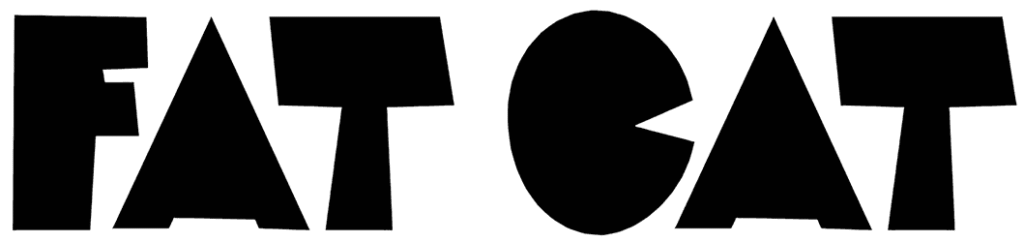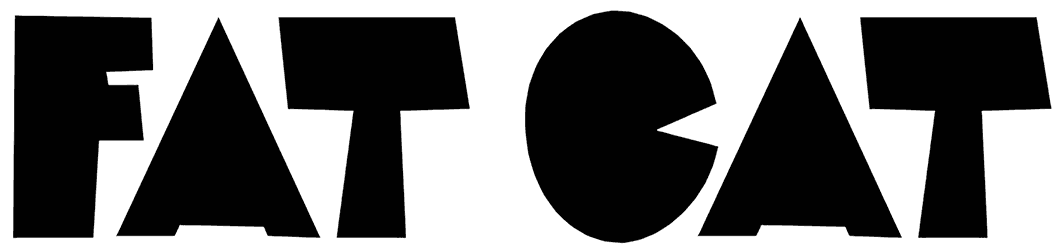
Fat Cat Font
If you are running a project where details are not important, Fat Cat can be your choice. This font is not dissimilar to thick and heavy layers, and as a result, it can work well for sports designs. This cartoon font pro…
If you are running a project where details are not important, Fat Cat can be your choice. This font is not dissimilar to thick and heavy layers, and as a result, it can work well for sports designs.
This cartoon font provides only a shade of letters and can make any viewer feel playful. Since lowercase letters are not included in this collection, the use of Fat Cat is more common in cover designs, short texts, and titles.